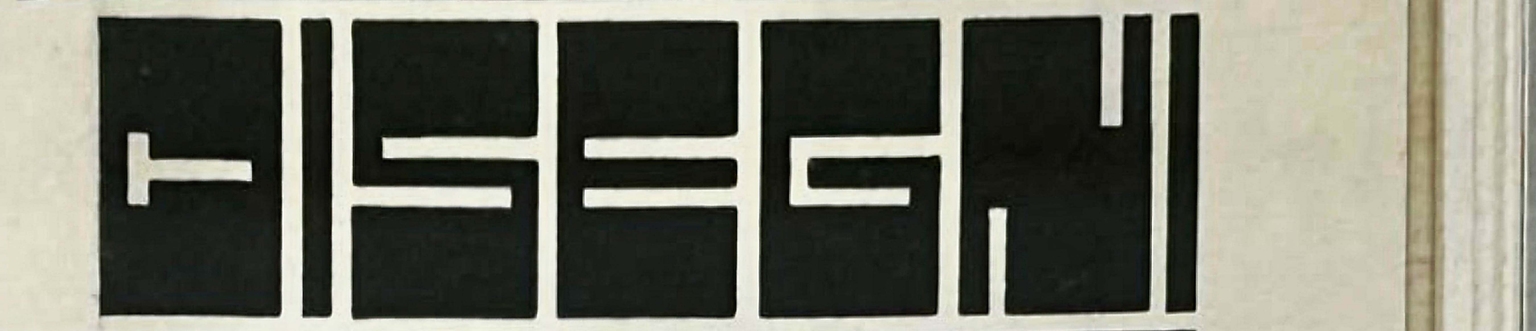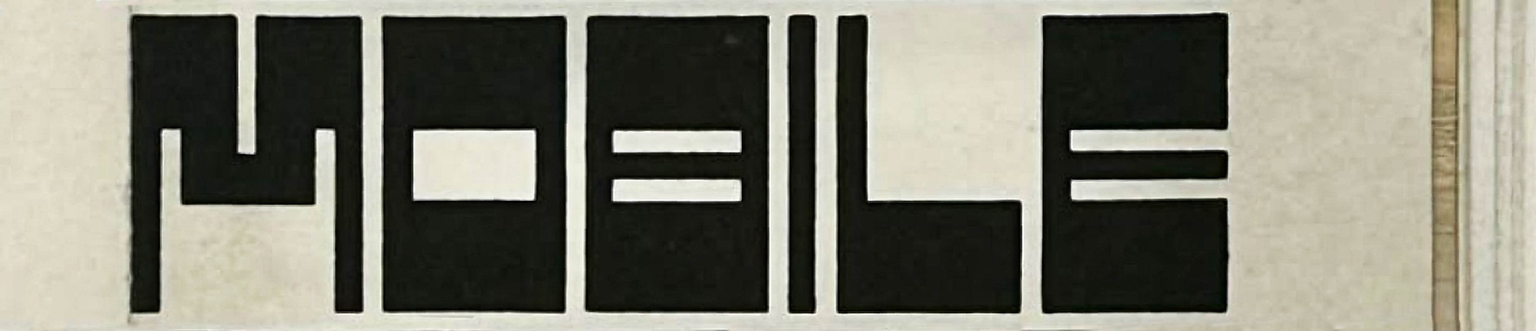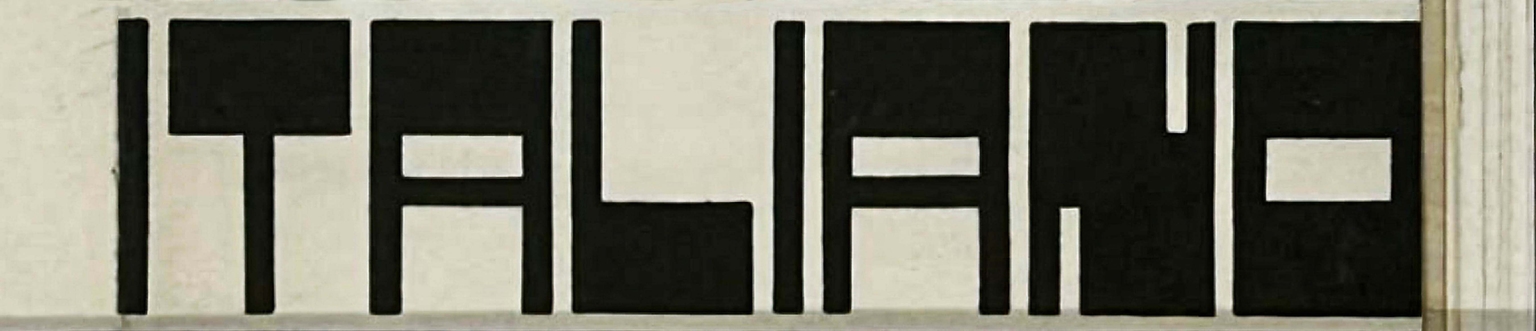
Anders
Anders is a typeface by Paula Mastrangelo, inspired by an arrestingly modular, curve-free alphabet created by English designer and architect Edward Wright (1912–1988) for the 1960 Milan publication Nuovi disegni per il mobile italiano. In Wright’s original work, the letterforms embody a strict geometric logic, reducing the alphabet to a system of rectilinear components that feels at once functional and experimental.
Fascinated by the radical simplicity of Wright’s design, Mastrangelo undertook the challenge of translating it into a complete, contemporary typeface. In doing so, she preserved the uncompromising geometry of the original while expanding it into a versatile character set, suitable for modern typographic needs.
Anders thrives in contexts where attitude and boldness are paramount—artist's websites, logos, signage, computer games, EDM events and recordings, posters, and communication pieces for museums of modern art. As both homage and reinvention, it channels Wright’s mid-century modernist vision while offering designers a rigorous yet playful tool for the present day.